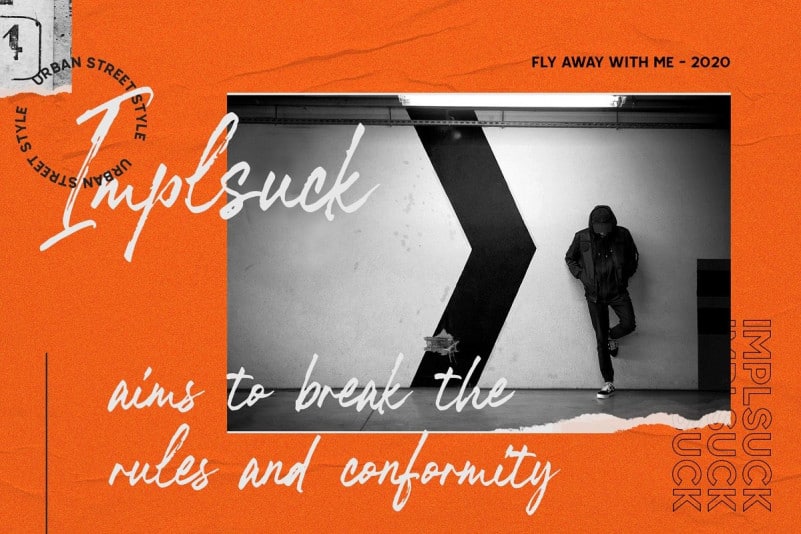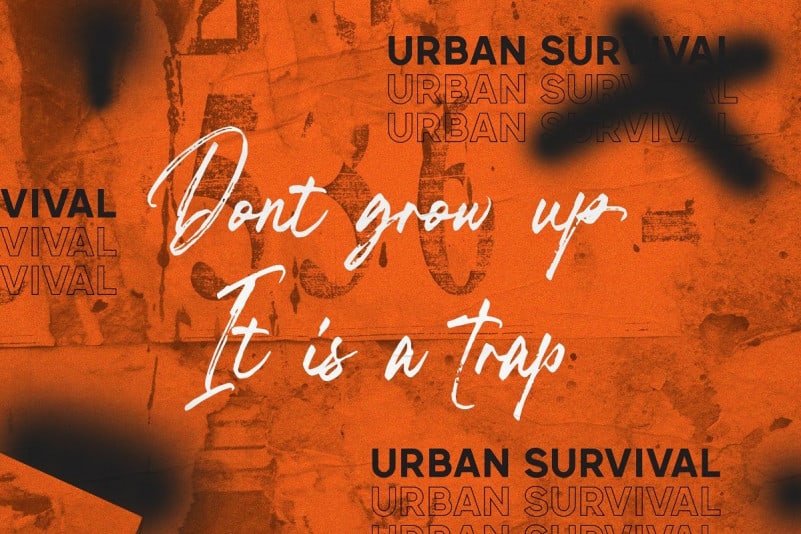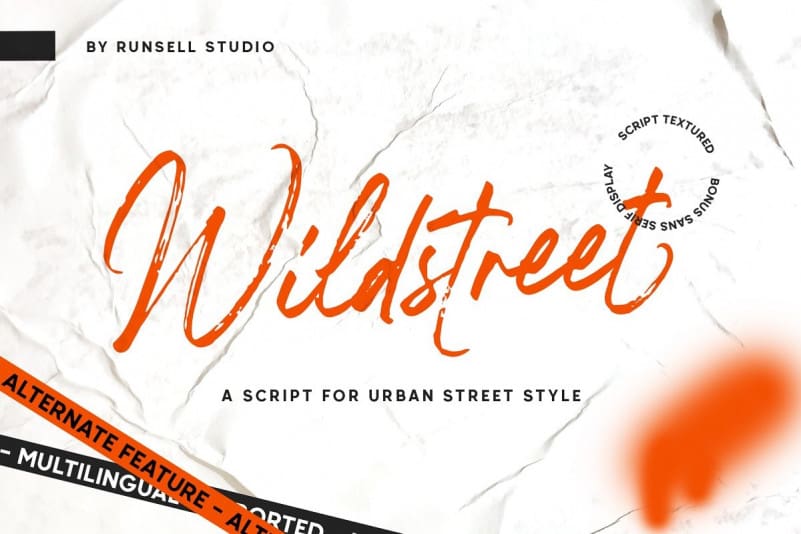
Wildstreet Brush Font
Wildstreet Brush Font is a modern handwritten font that feels beautiful classy, elegant, and modern. A natural script textured brush, matching for urban street themes. The features uppercase, lowercase, numeral, punctuation & symbol, ligatures, alternates, multilingual support, PUA encoded (fully accessible without additional design software). Pairing good with sans serif display called Retroica Font. This font duo are great addition to your font library. It inspires a handcrafted aesthetic that pairs so well with san serif display.